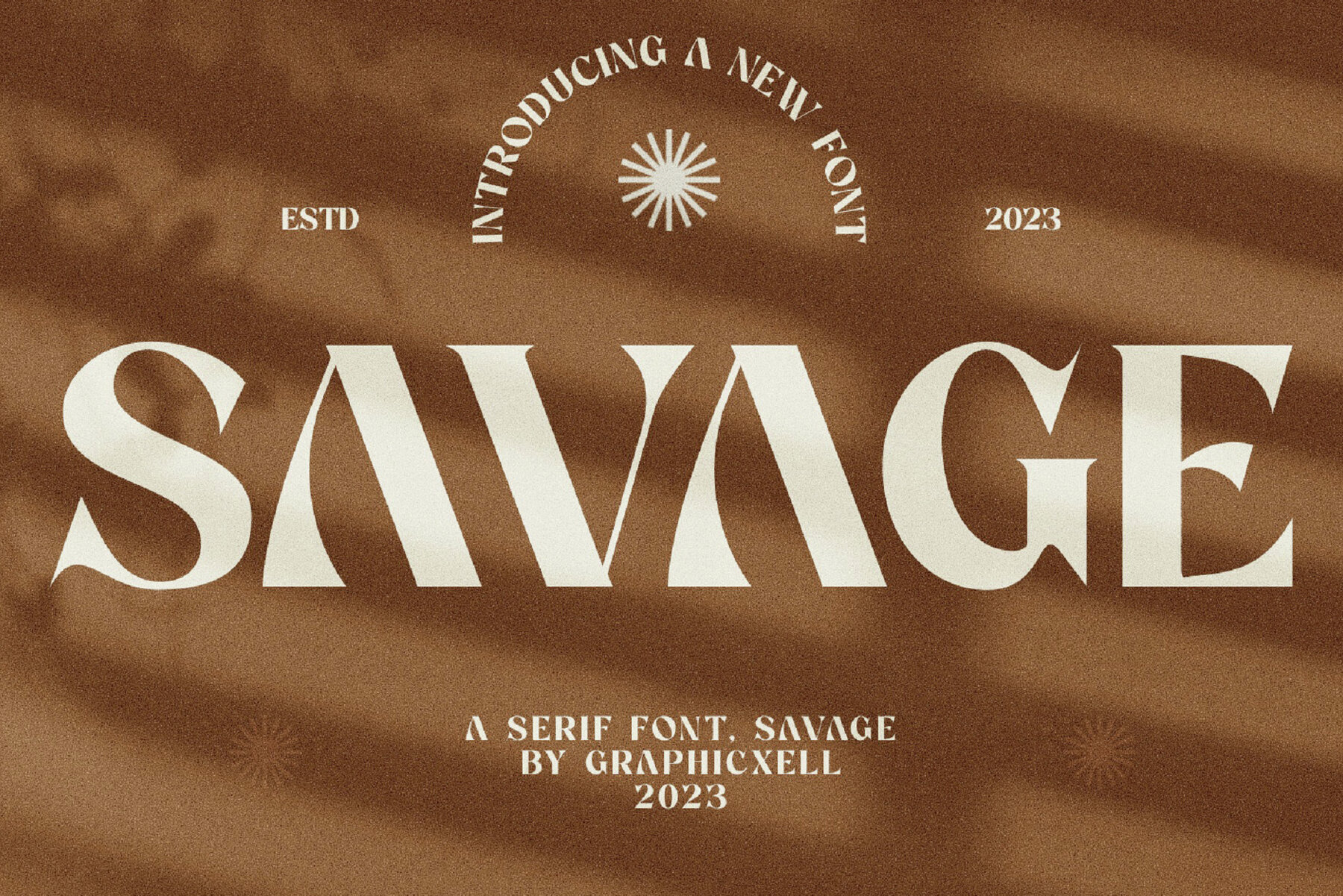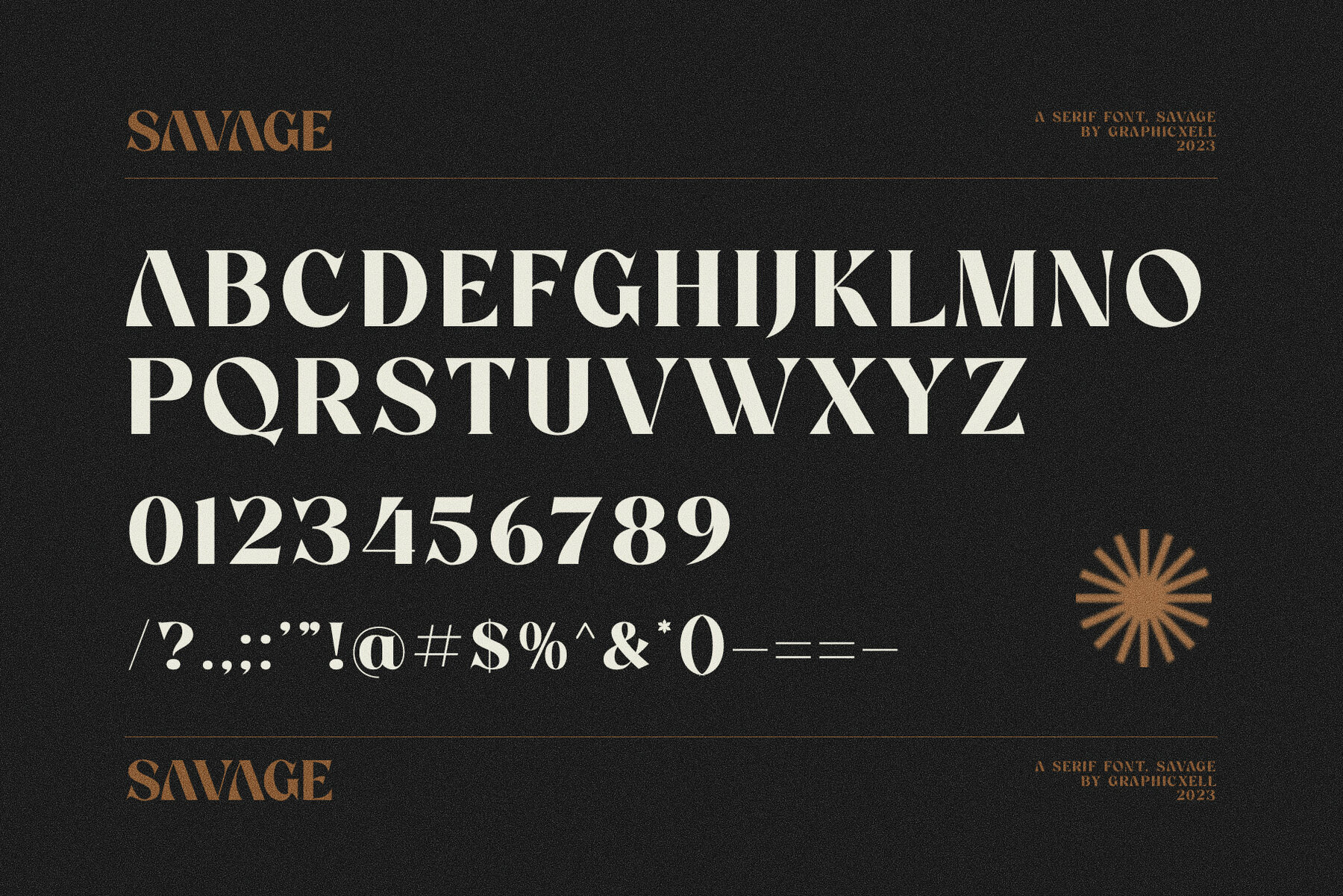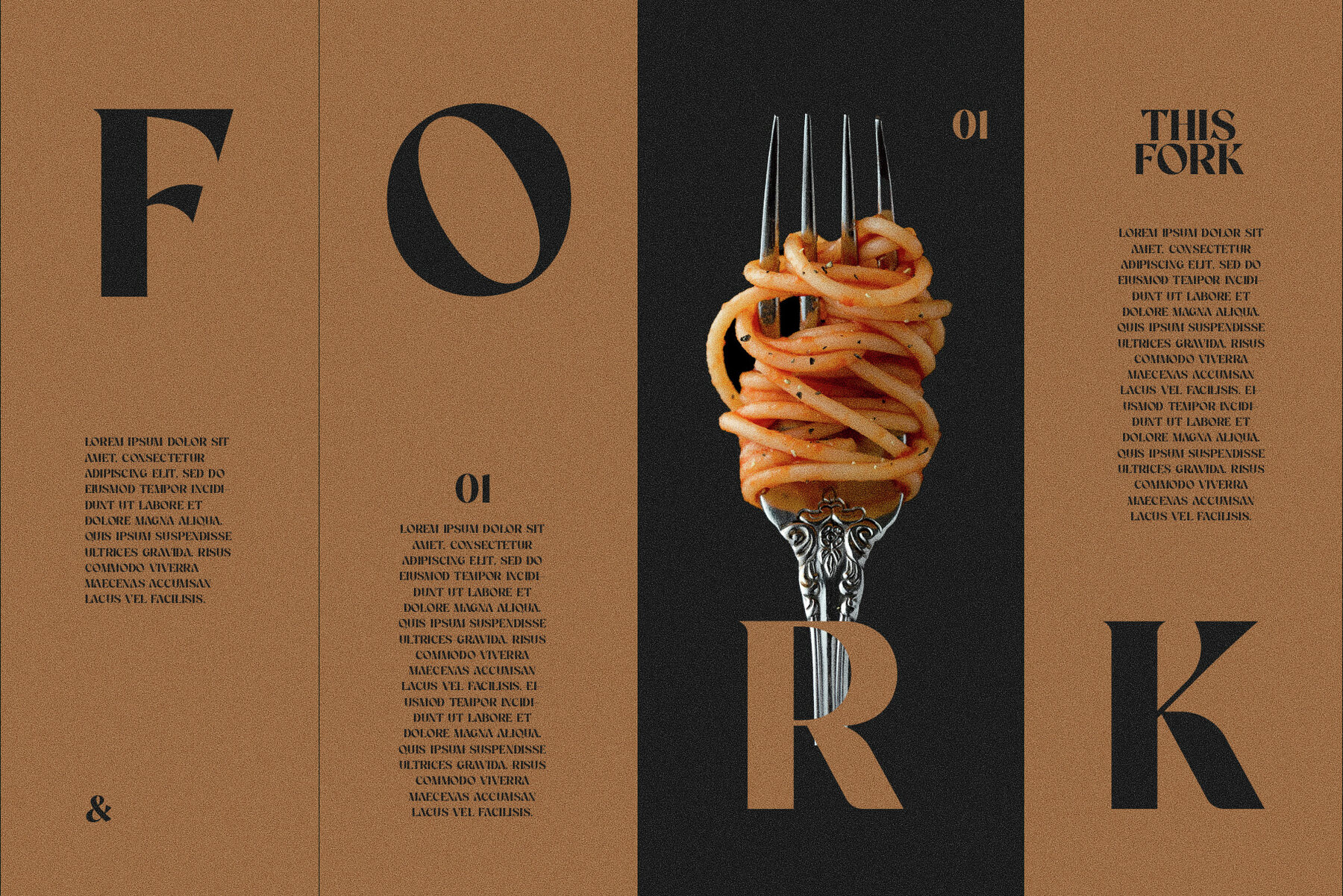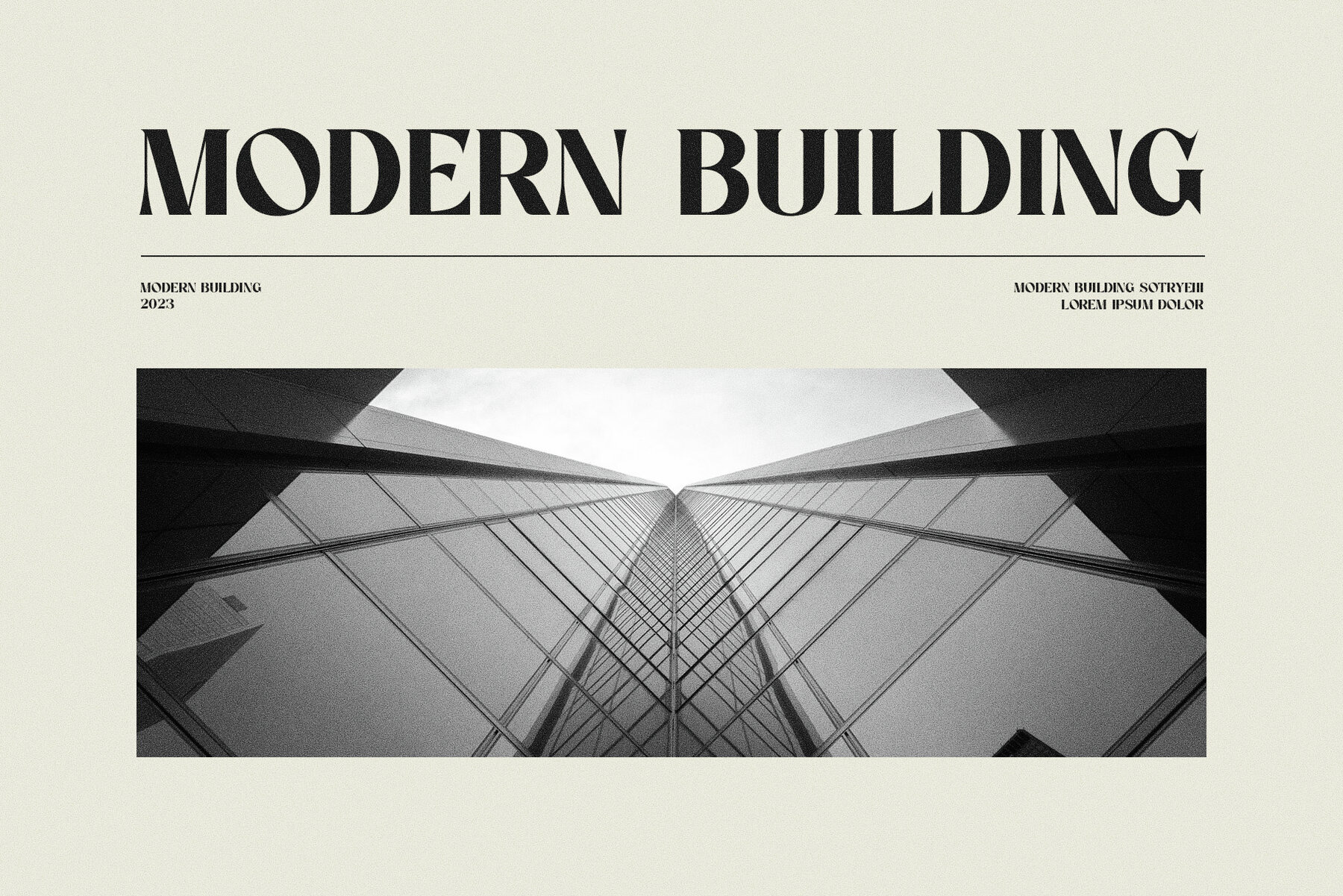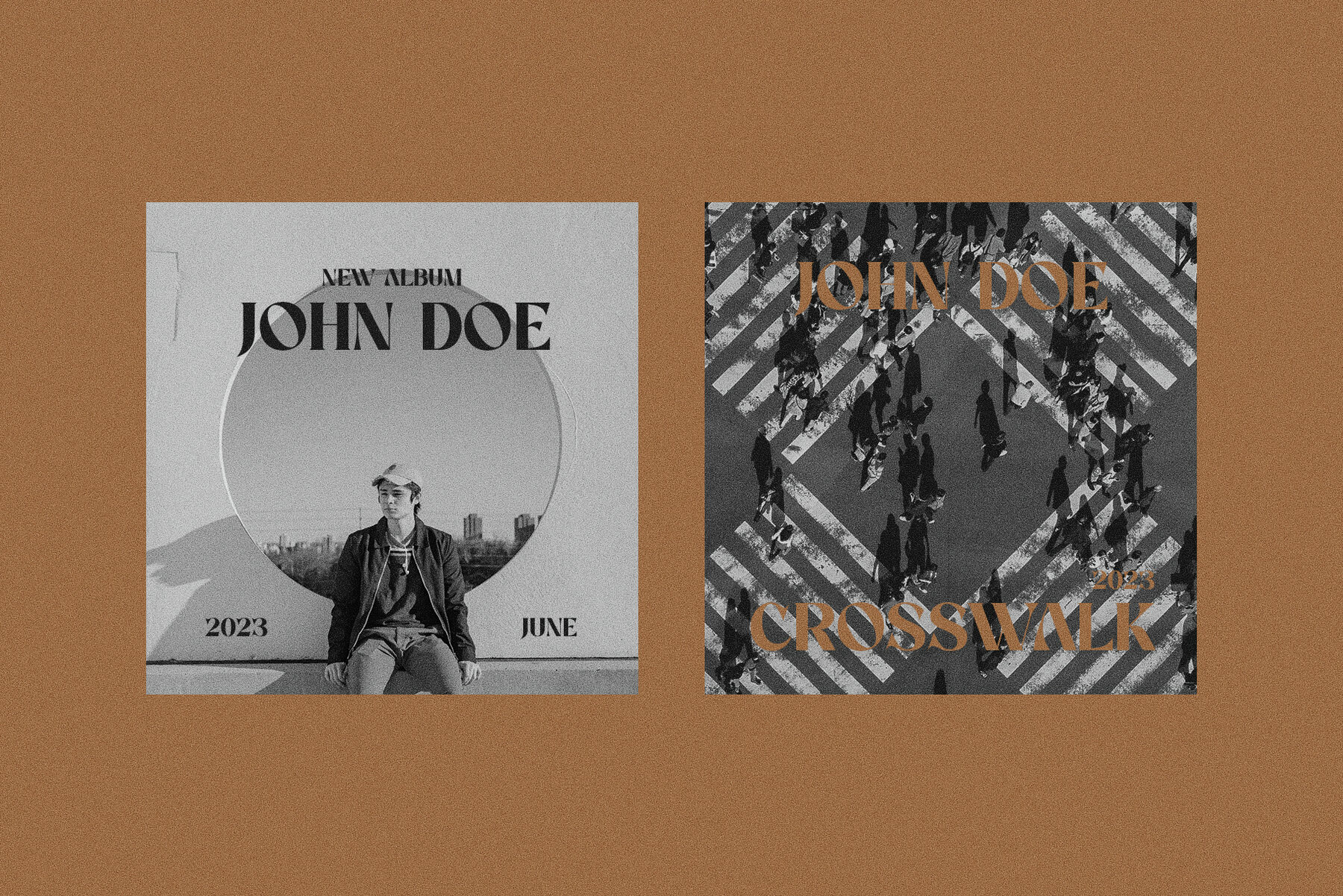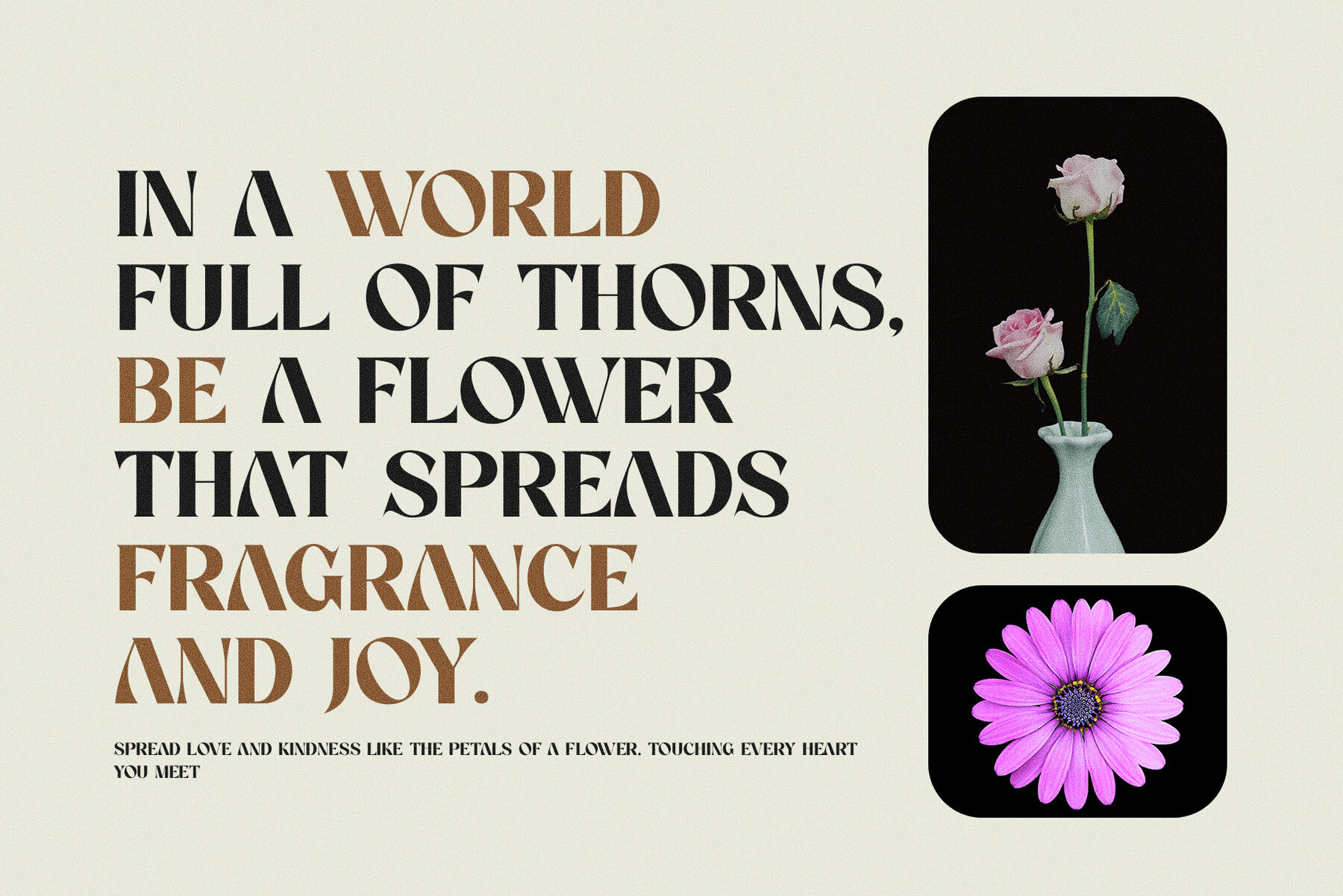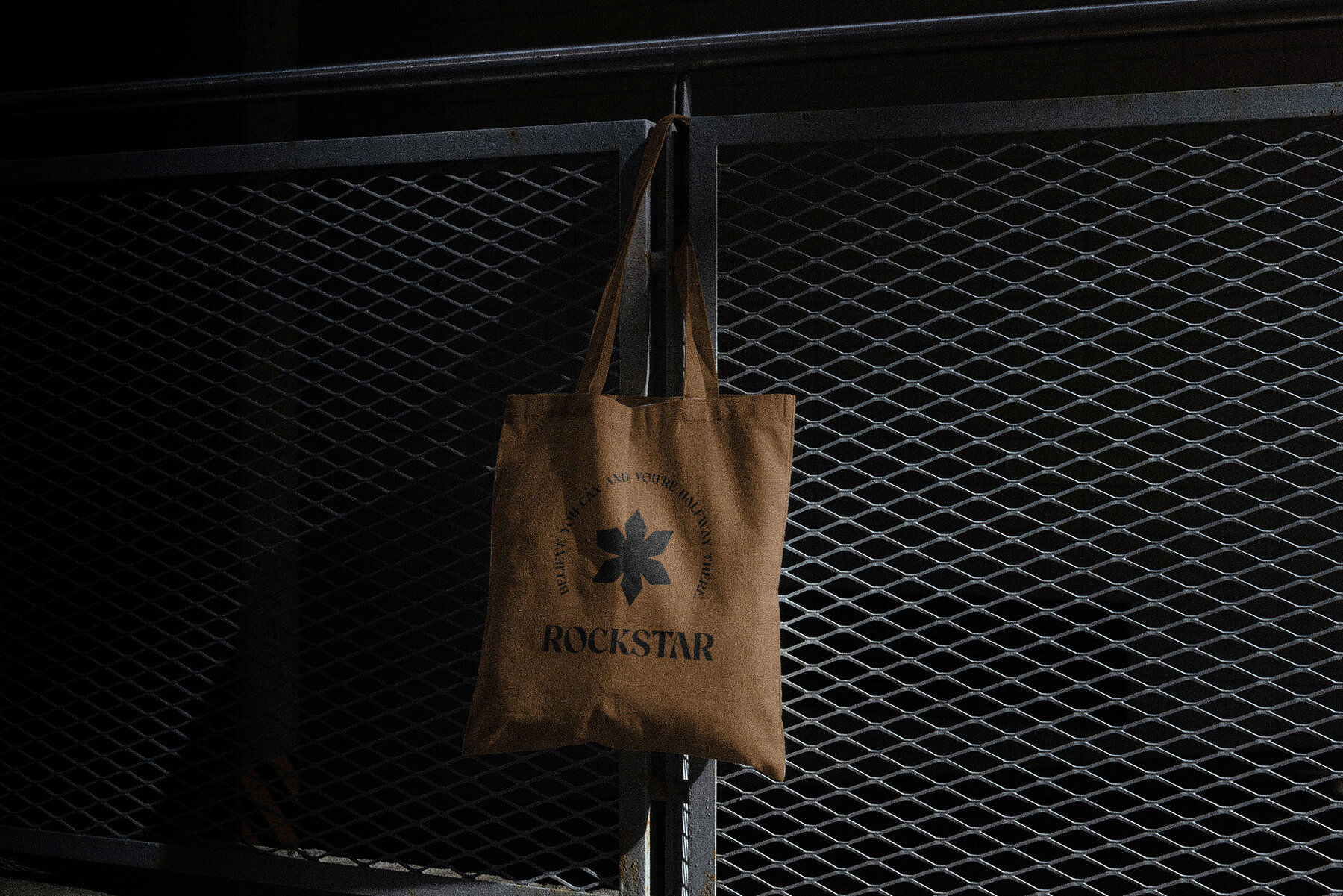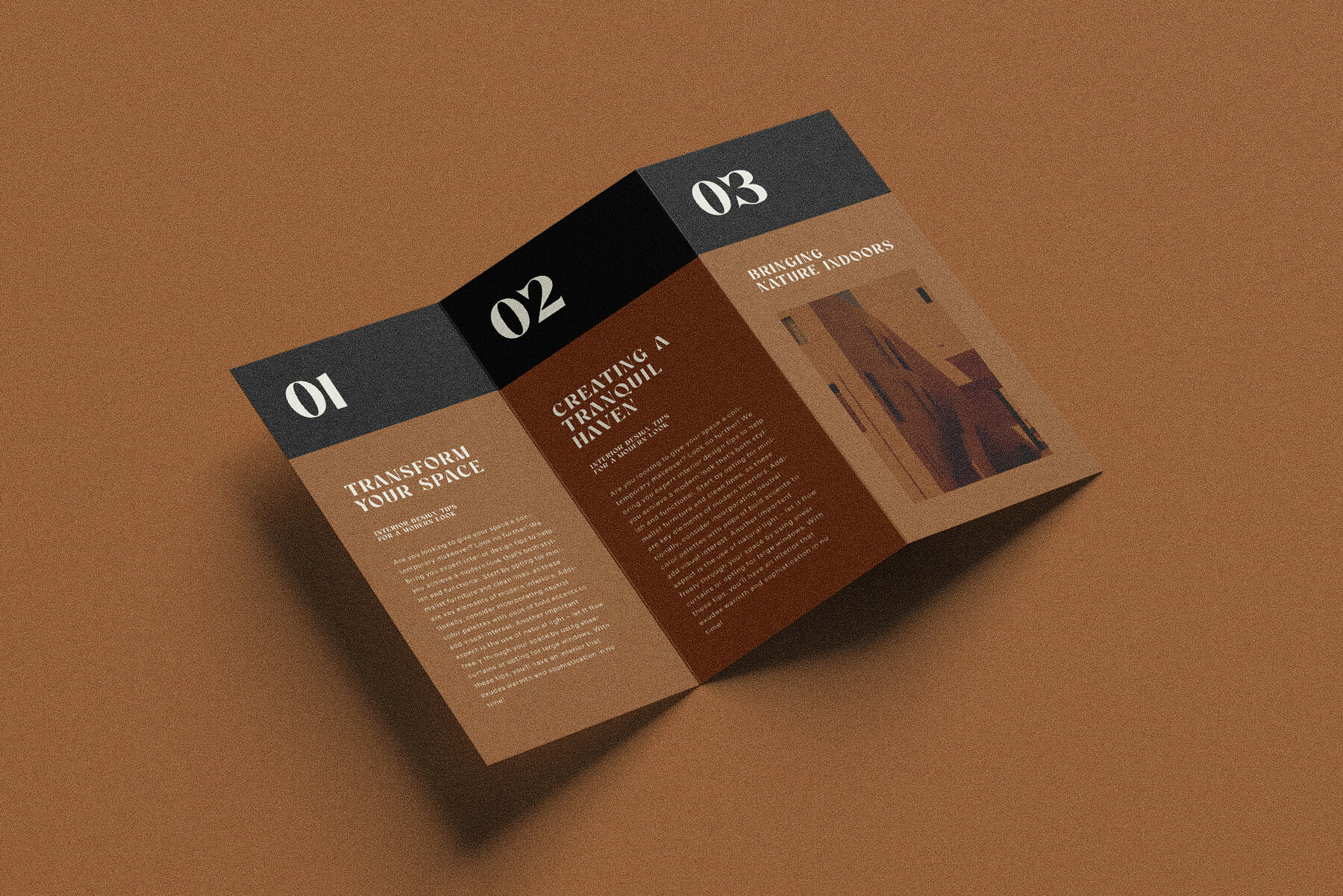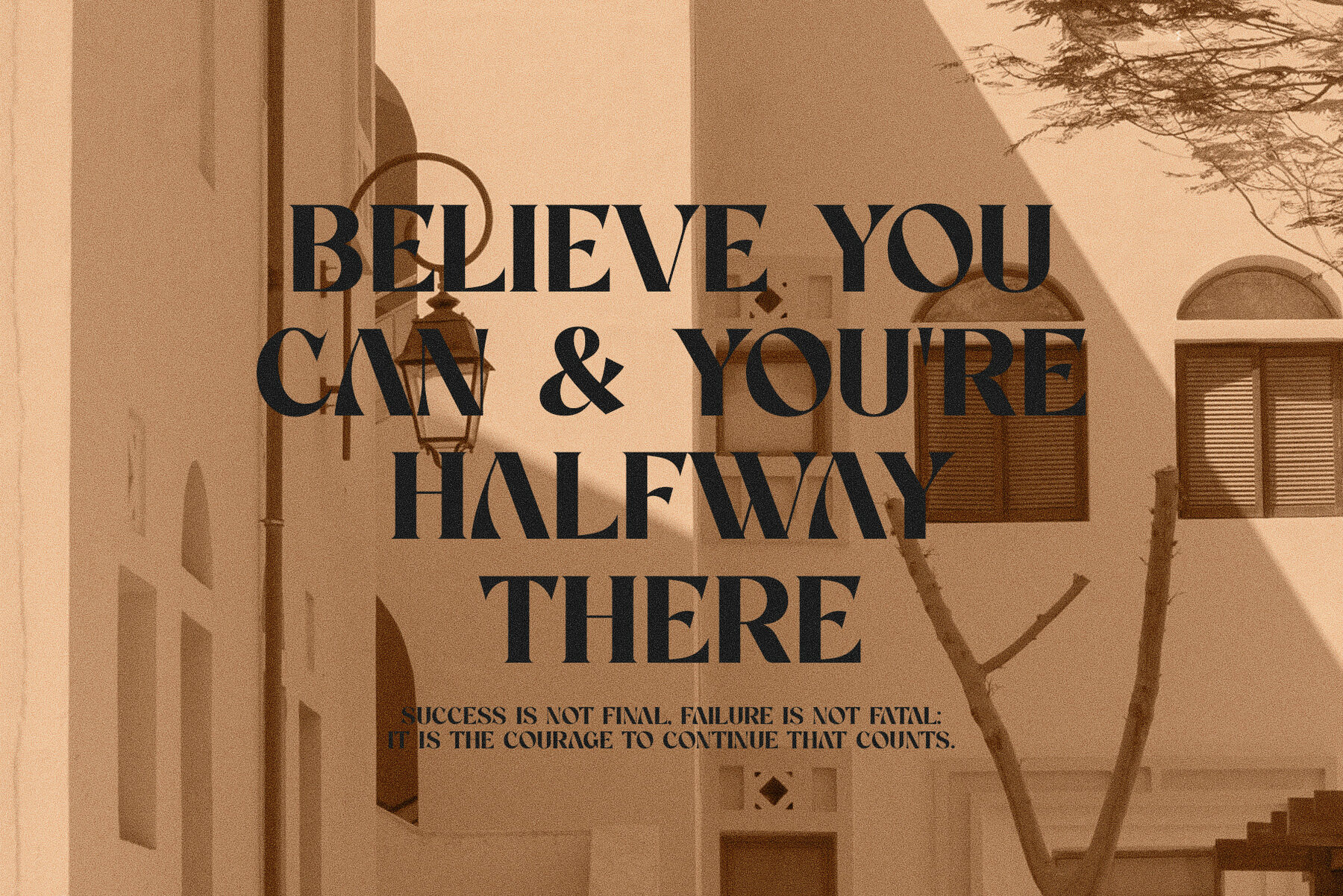
Savage Font
Savage Regular
Savage by Graphicxell is a unique and elegant serif font, perfect for branding and logo designs. Its sophisticated style seamlessly combines classic and modern elements, making it ideal for various creative projects. With a high level of readability, Savage is sure to meet your design needs. This font is recommended for use in Adobe Illustrator or Adobe Photoshop. If you have any questions, feel free to reach out. We are happy to assist you!Savage: Elegant Serif for Branding and Logos